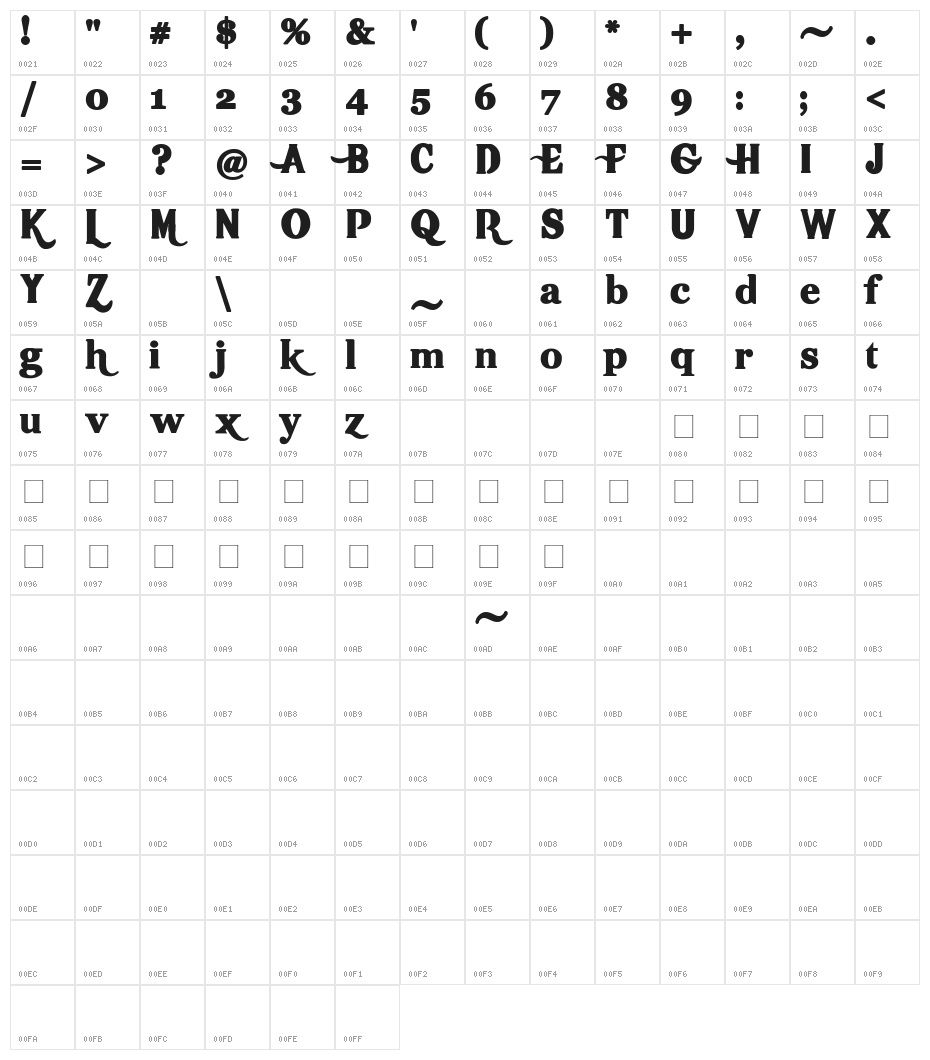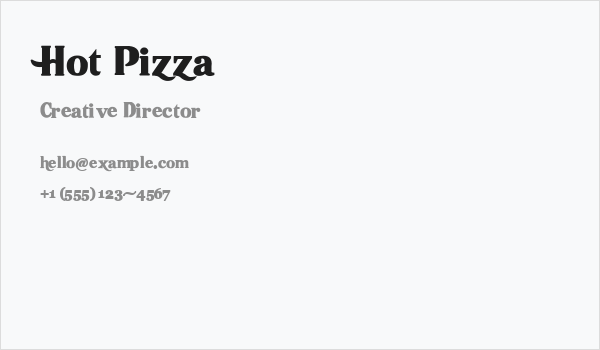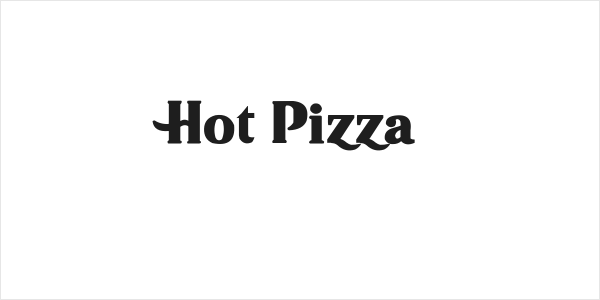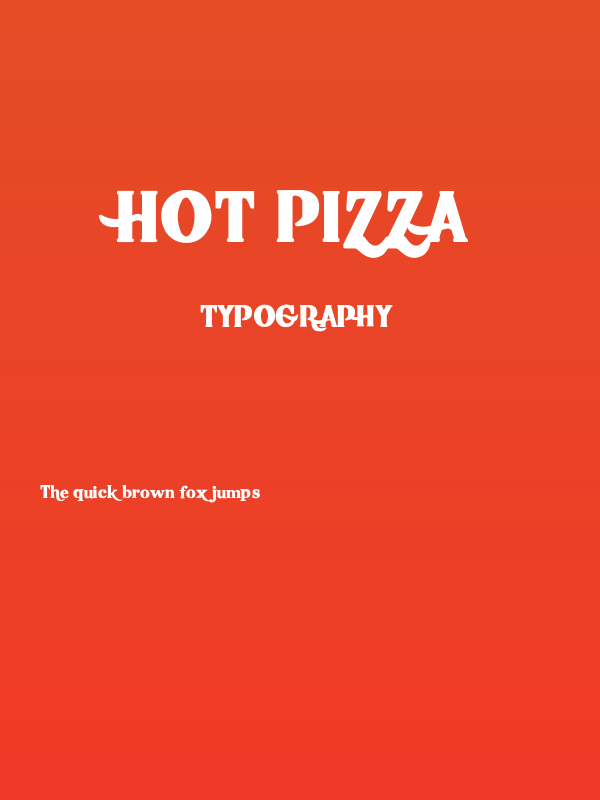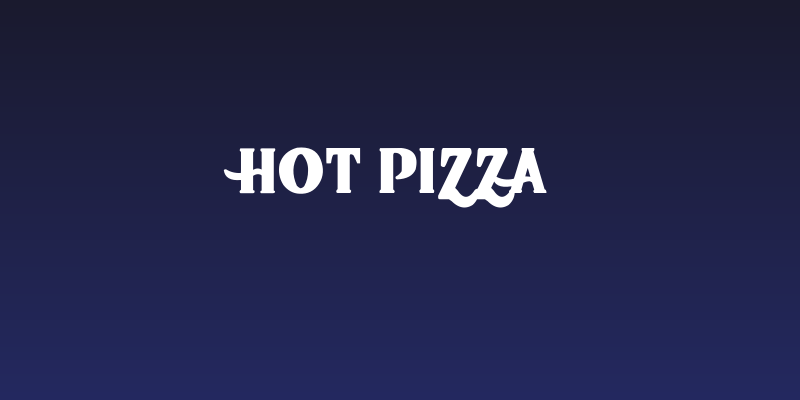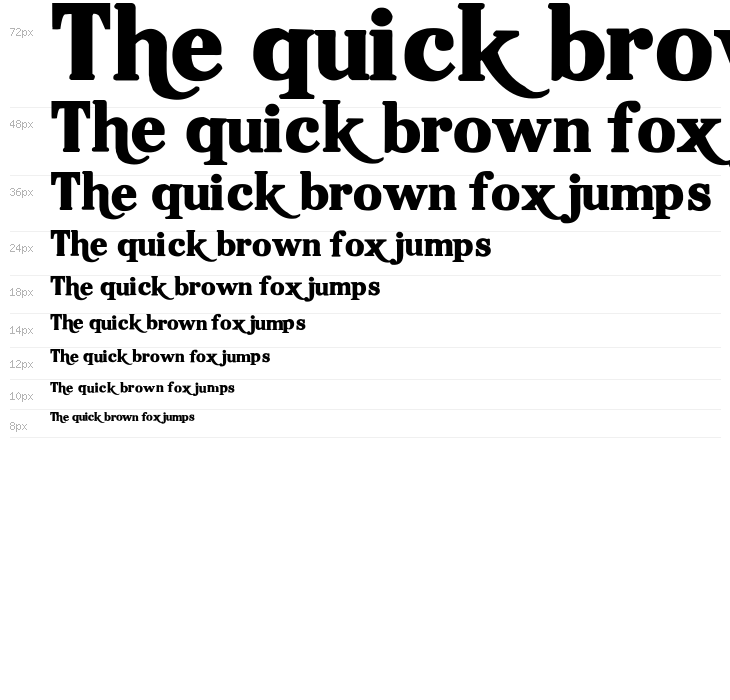
Hot Pizza Font
Hot Pizza Description
This font features a bold and playful design with a distinctive flair. The uppercase letters have a strong presence with thick strokes and subtle curves that add a touch of whimsy. The lowercase letters maintain a consistent weight, offering a harmonious balance between readability and style. Numbers are robust and clear, making them suitable for various applications. Special characters are creatively designed, enhancing the font's overall playful and decorative nature. This font is ideal for projects that require a bold and eye-catching typeface.
Proposed ProjectsPerfect for branding, posters, headlines, and any design that needs a bold, playful touch.